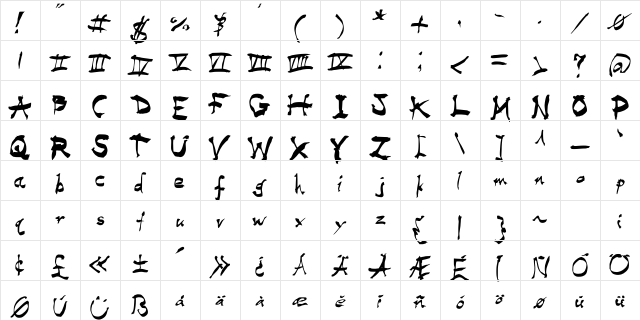
Complete 5 Finger Death Punch Medium glyph index. Displaying only characters natively supported by 5 Finger Death Punch Medium font.
5 Finger Death Punch carries an unsettling edge - its distorted letterforms are built to unsettle, perfectly suited to horror, Halloween, and dark creative work.
Font Pairing: Pair with a clean neutral sans-serif for body copy to let 5 Finger Death Punch's character lead without overwhelming the composition.
Pro Tip: Use 5 Finger Death Punch at larger display sizes for maximum impact. Consider generous tracking to let the disturbing character of each letterform breathe.